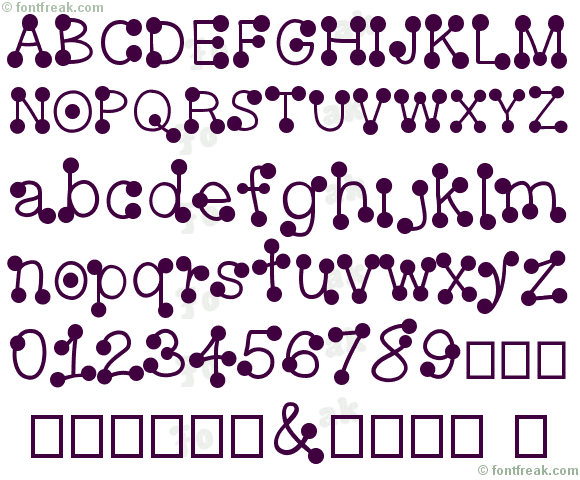
DiceGameDEMO
About DiceGameDEMO
DiceGameDEMO by Shara Weber is a playful, decorative font that captures attention with its unique visual appeal. This font features a whimsical style characterized by rounded shapes and varying stroke weights, creating a light-hearted and engaging atmosphere. The letters are designed with a combination of solid and hollow elements, adding an element of surprise and creativity that makes it suitable for various applications. The spacing between characters is balanced, ensuring legibility while maintaining its fun aesthetic.
Ideal for use in settings that require a touch of creativity, DiceGameDEMO shines in contexts such as children’s party invitations, playful branding projects, game covers, and promotional materials for events. Its unique character design makes it particularly effective for projects aimed at a younger audience or those looking to evoke nostalgia and fun. Small business owners in the entertainment sector or graphic designers working on creative pitches will find this font to be a valuable addition to their toolkit.
Content creators looking to add an element of charm to their designs will appreciate the versatility of DiceGameDEMO. Whether it's for crafting engaging social media posts or designing eye-catching flyers, this font effortlessly stands out. The playful nature of the font invites users to explore their creativity while delivering their message in an entertaining format.
What sets DiceGameDEMO apart is its ability to combine fun and functionality. This font’s unique design elements ensure that it captures the essence of playfulness without compromising readability. As a freeware option, the DiceGameDEMO font free download makes it accessible to anyone looking to enhance their design projects. Embrace the charm of DiceGameDEMO and let your creativity shine in a truly distinctive way.